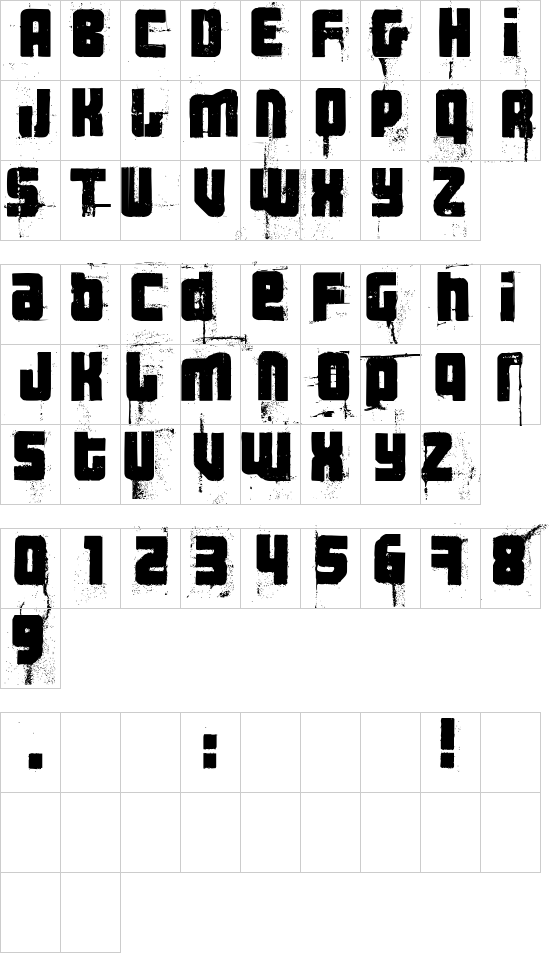
3 theHard way RMX is a gritty grunge font with rough, distressed letterforms and a battered, urban texture. The edges are chipped and the surfaces worn, as though the letters were sprayed, scuffed, and weathered on a city wall before being scanned in.
Download it for street-art posters, hip-hop branding, skate graphics, and raw T-shirt designs. 3 theHard way RMX is free as a TrueType file, and you can preview it with your own text to see how its distressed letters carry your slogans and titles before you build them into a layout.